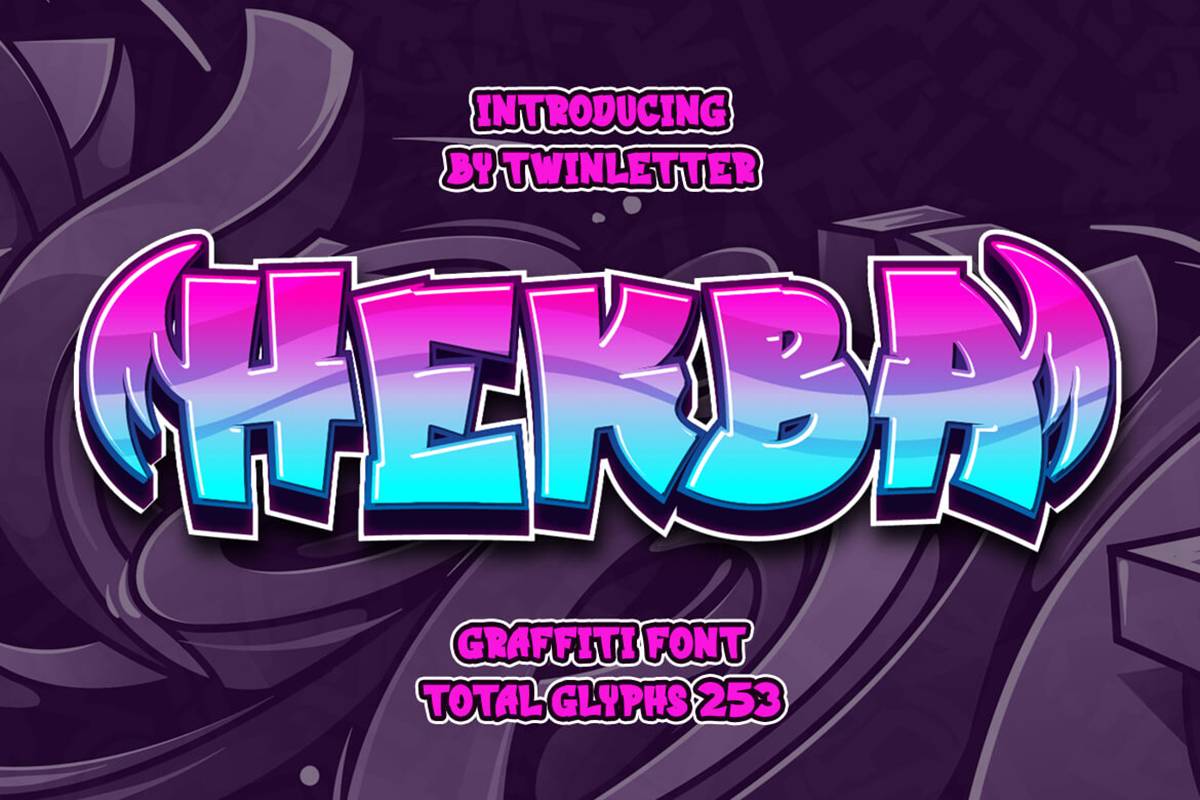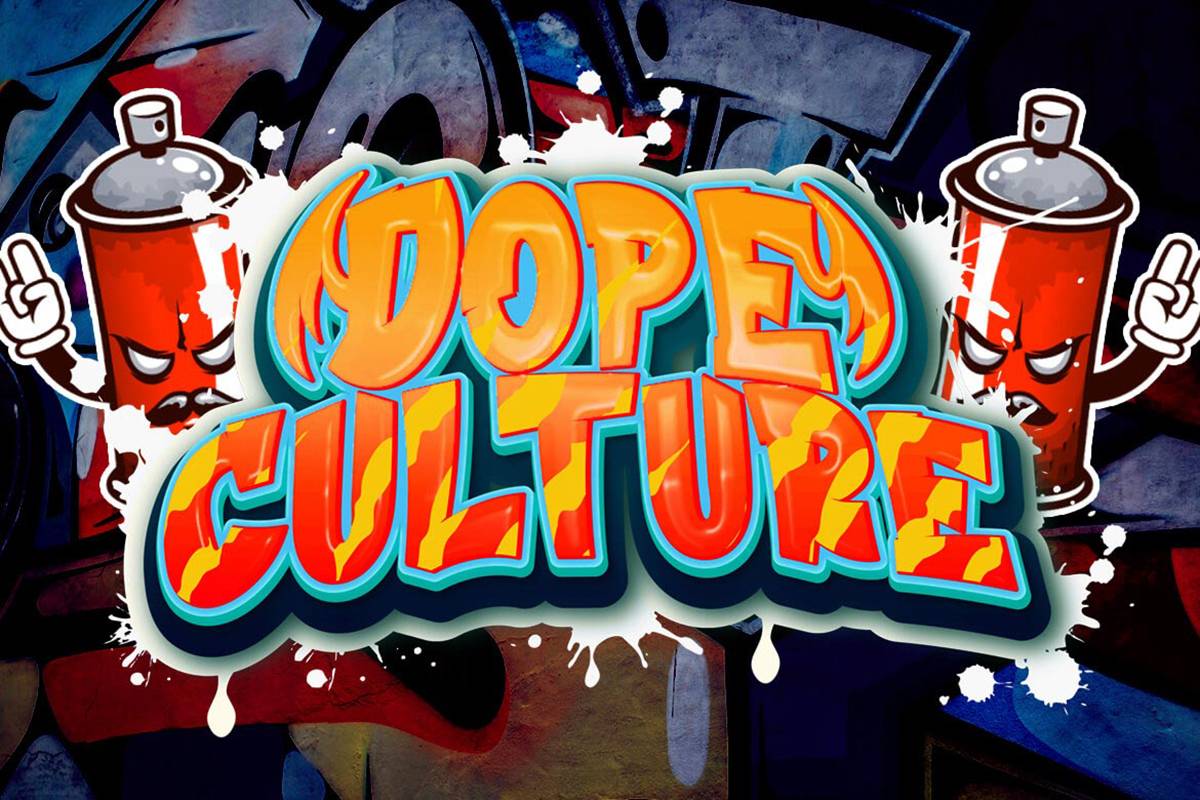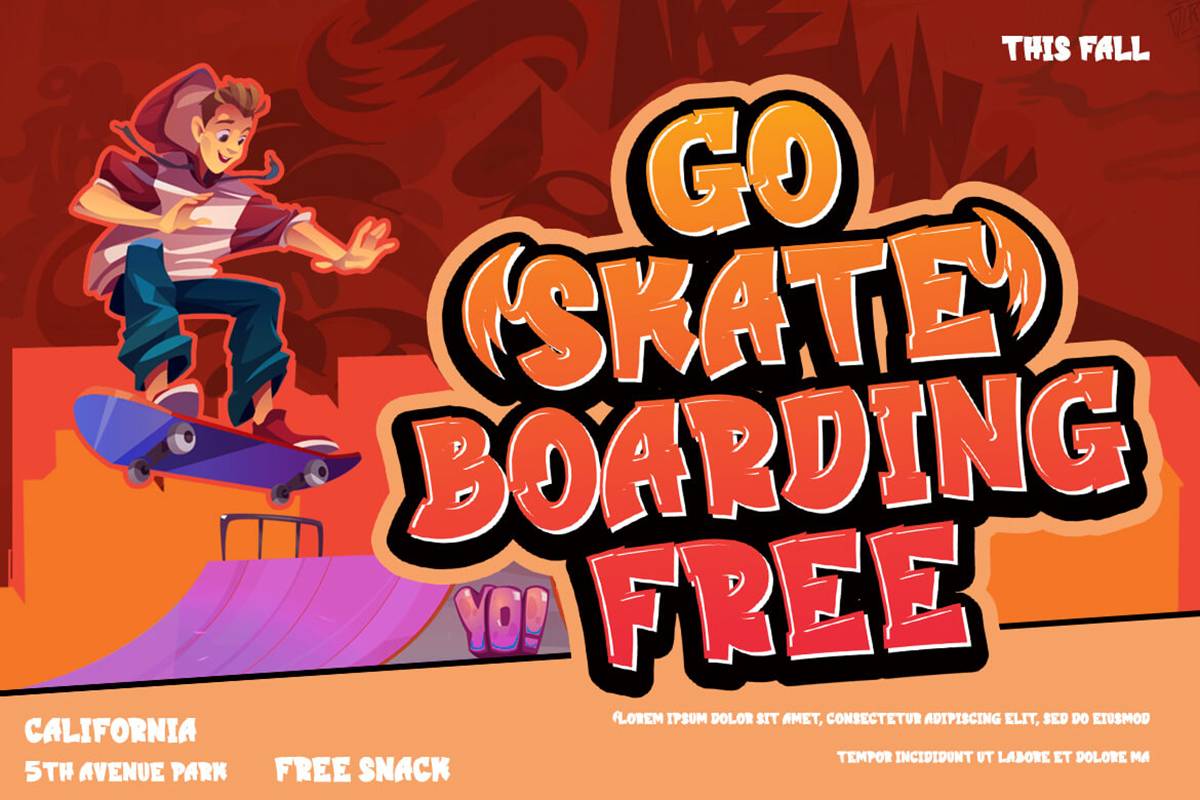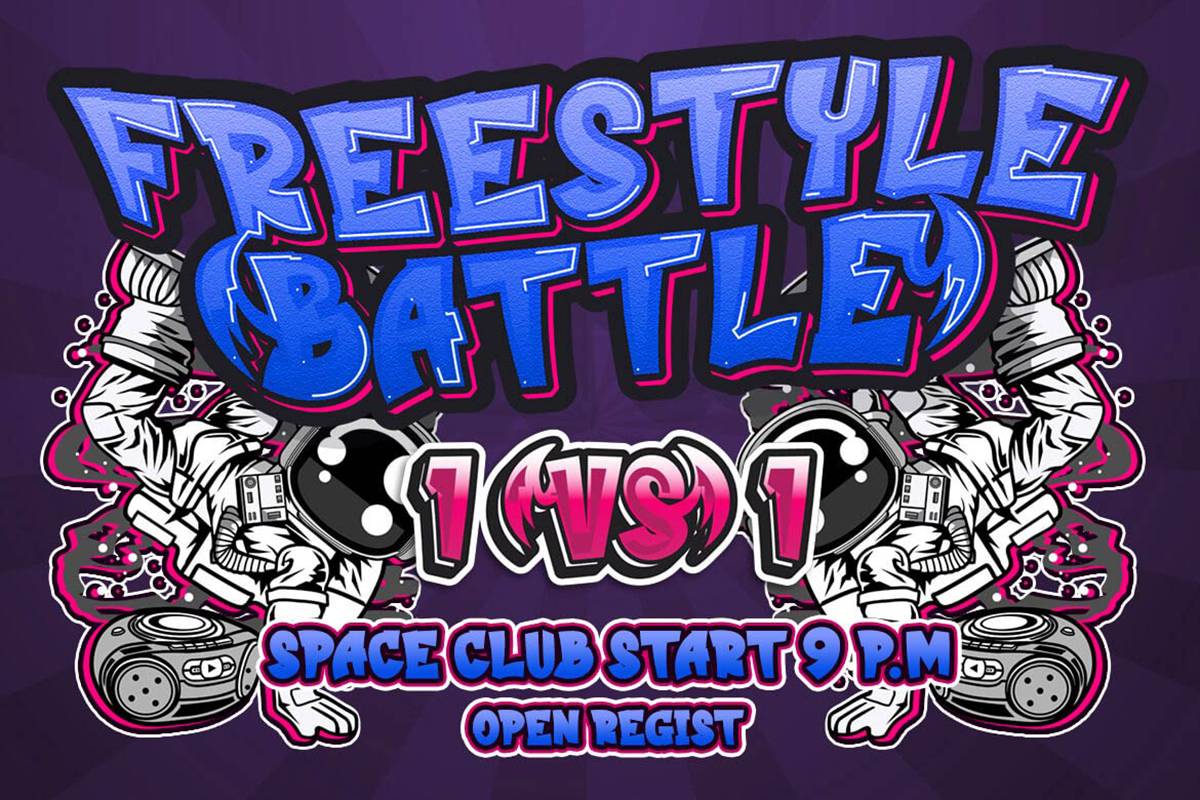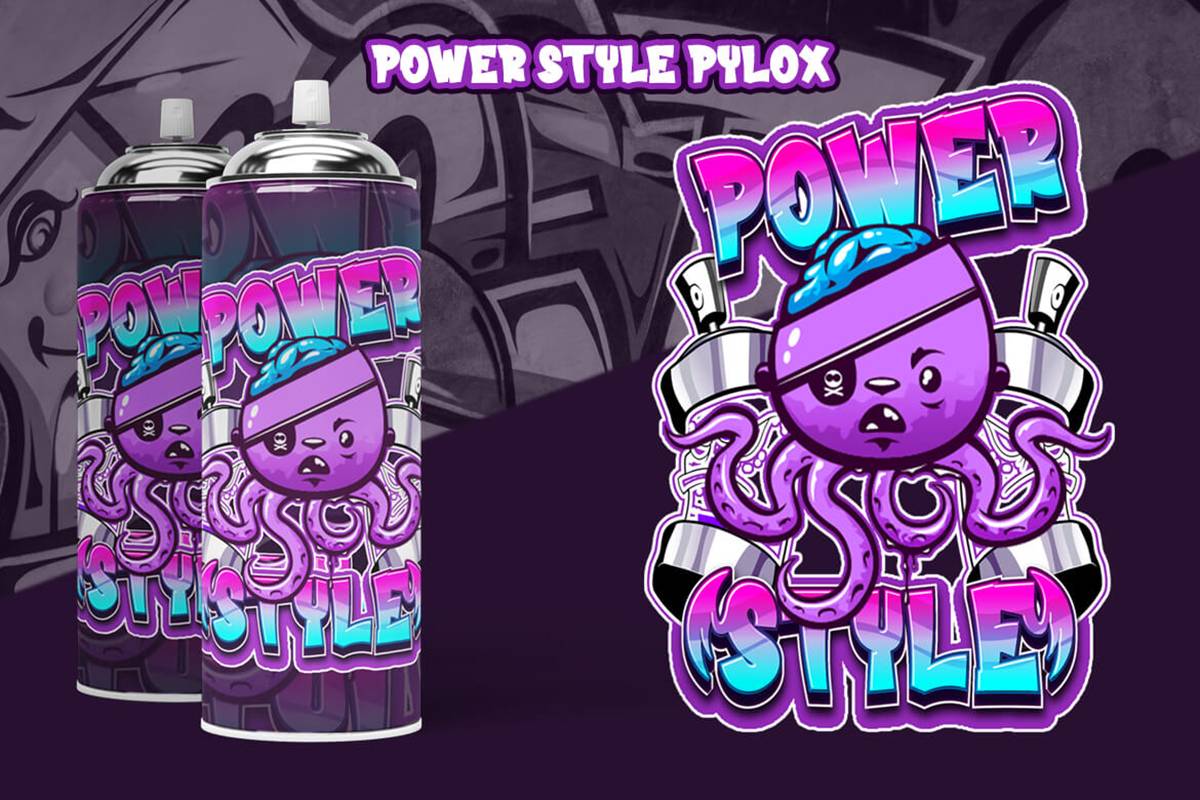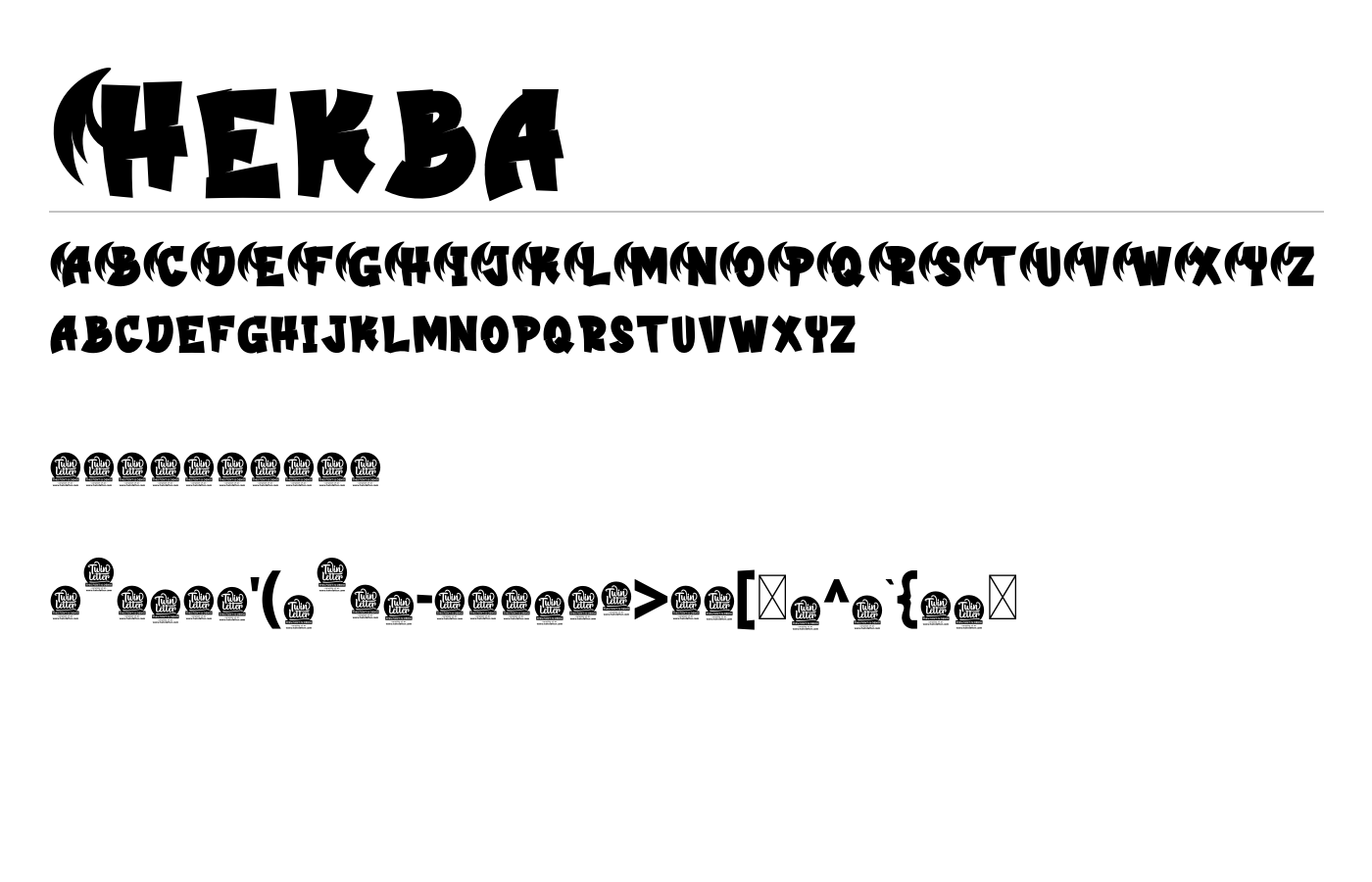
Hekba is a bold, condensed display font with a strong, playful character defined by its chunky, irregular shapes and sharp, angular edges. Its all-caps design and heavy weight make it perfect for attention-grabbing headlines, logos, and posters where a sense of boldness and creativity is needed. Ideal for youthful, dynamic branding, Hekba conveys a modern, energetic vibe that stands out in both print and digital media.
Hekba Font
About Hekba Font